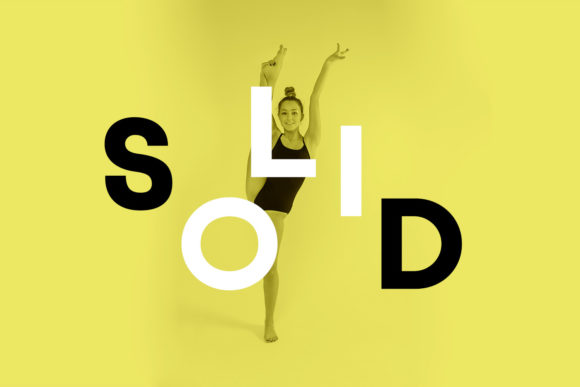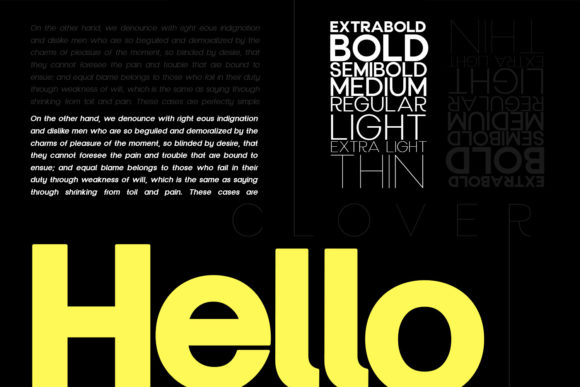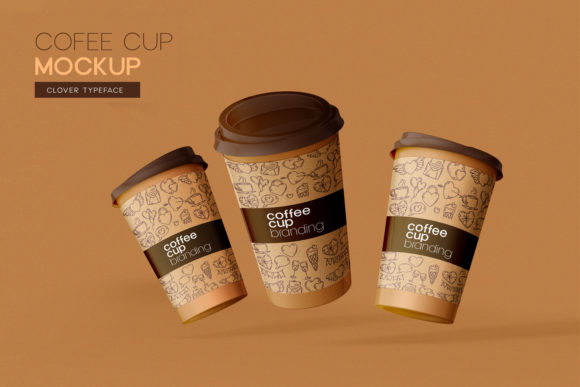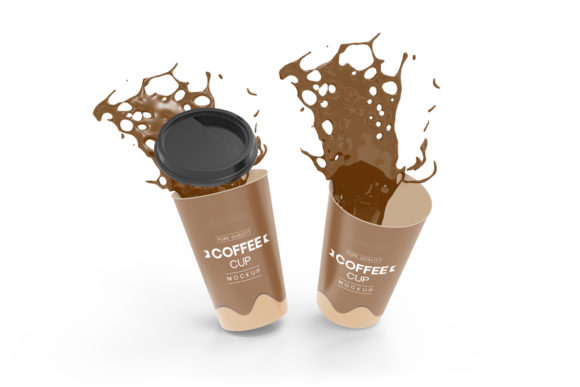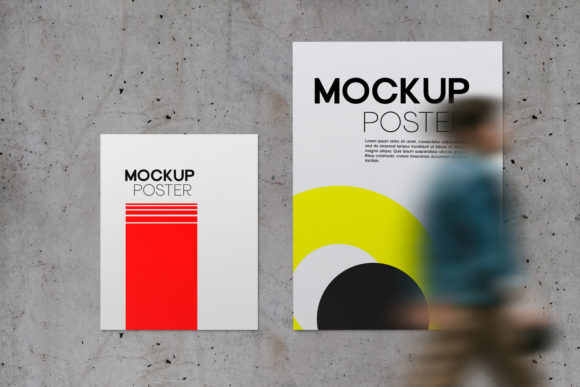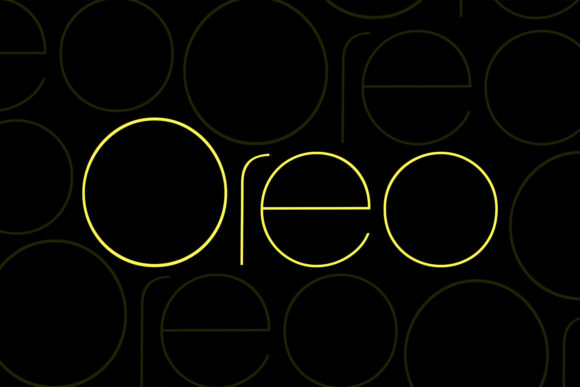
Clover Font: The Ultimate Display Font for Bold Designs
Are you looking for a font that can add a touch of boldness and thickness to your designs? Look no further than the Clover Font. This display font is perfect for any branding project that requires a statement piece. In this article, we’ll dive into the features and benefits of the Clover Font and explore how it can elevate your designs.
What is Clover Font?
Clover Font is a bold and thick lettered display font that is designed to make a statement. Its unique and eye-catching design makes it perfect for a wide range of applications, from logos and t-shirt printing to sport designs and more. The font’s bold and thick letters are sure to grab attention and leave a lasting impression.
Key Features of Clover Font
- Bold and Thick Letters: The Clover Font features bold and thick letters that are perfect for creating eye-catching designs.
- Versatile: This font is suitable for a wide range of applications, including logos, t-shirt printing, sport designs, and more.
- Easy to Read: Despite its bold design, the Clover Font is easy to read, making it perfect for use in a variety of contexts.
- Unique and Eye-Catching: The Clover Font’s unique design makes it stand out from other fonts, ensuring that your designs will be noticed.
Benefits of Using Clover Font
So, why should you choose the Clover Font for your designs? Here are just a few benefits of using this amazing font:
- Instant Recognition: The Clover Font’s bold and thick design ensures that your message will be noticed and remembered.
- Professional Look: The font’s unique design gives it a professional look that is sure to impress.
- Easy to Use: The Clover Font is easy to use and can be incorporated into a wide range of designs.
Use Cases for Clover Font
The Clover Font is versatile and can be used in a wide range of applications. Here are just a few examples:
- Logos: The Clover Font is perfect for creating bold and eye-catching logos that will make your brand stand out.
- T-Shirt Printing: This font is ideal for t-shirt printing, ensuring that your designs will be noticed and remembered.
- Sport Designs: The Clover Font’s bold and thick design makes it perfect for sport designs, such as jerseys and team logos.
- Advertising: This font can be used in advertising to create eye-catching and memorable ads.
Tips for Using Clover Font
Here are a few tips for using the Clover Font in your designs:
- Use it Sparingly: While the Clover Font is bold and eye-catching, it’s best to use it sparingly to avoid overwhelming your design.
- Pair it with Other Fonts: The Clover Font can be paired with other fonts to create a unique and eye-catching design.
- Experiment with Colors: The Clover Font looks great in a wide range of colors, so don’t be afraid to experiment and find the perfect color for your design.
In conclusion, the Clover Font is a bold and thick lettered display font that is perfect for any branding project. Its unique and eye-catching design makes it suitable for a wide range of applications, from logos and t-shirt printing to sport designs and more. With its ease of use, versatility, and cost-effectiveness, the Clover Font is a must-have for designers and crafters who want to create high-quality designs that stand out.